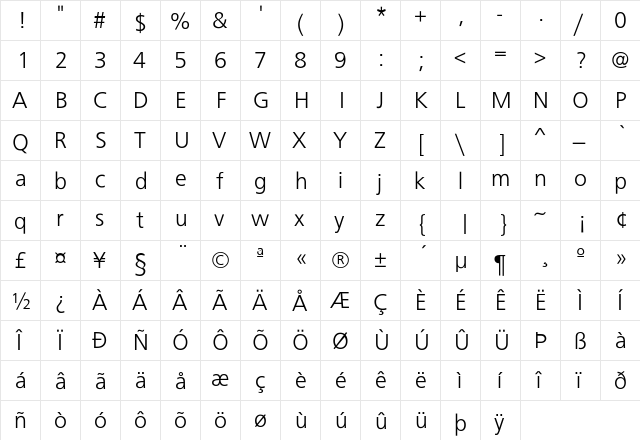
FrugalSans-Light Regular
Design Context for FrugalSans-Light Typeface
FrugalSans-Light is a composed and adaptable typeface that performs quietly and consistently across a wide range of design contexts. The delicate stroke weight brings airiness and refinement to layouts.